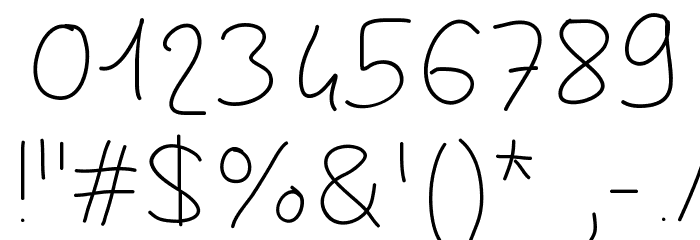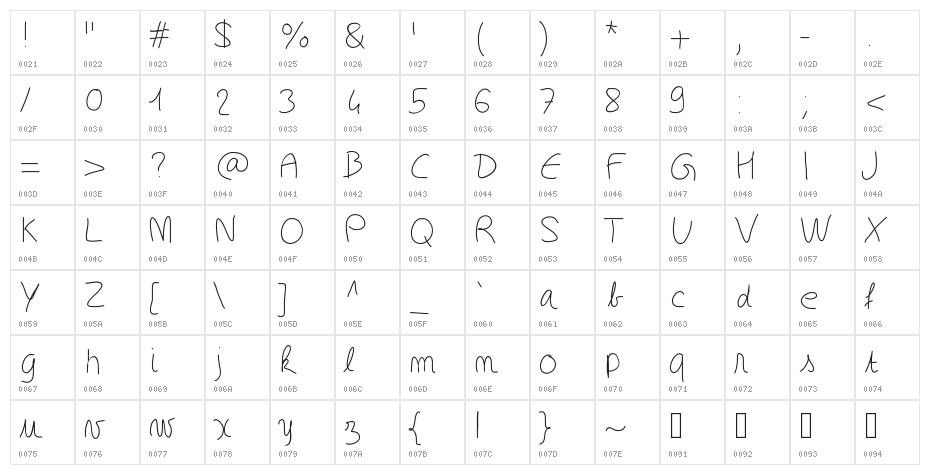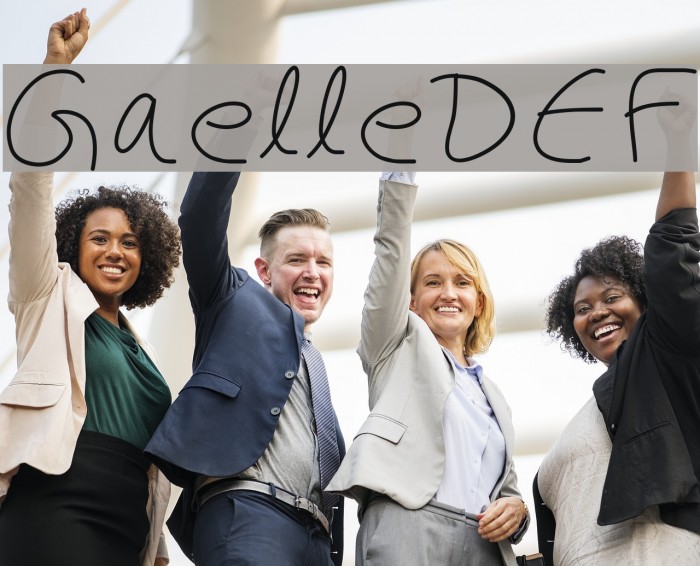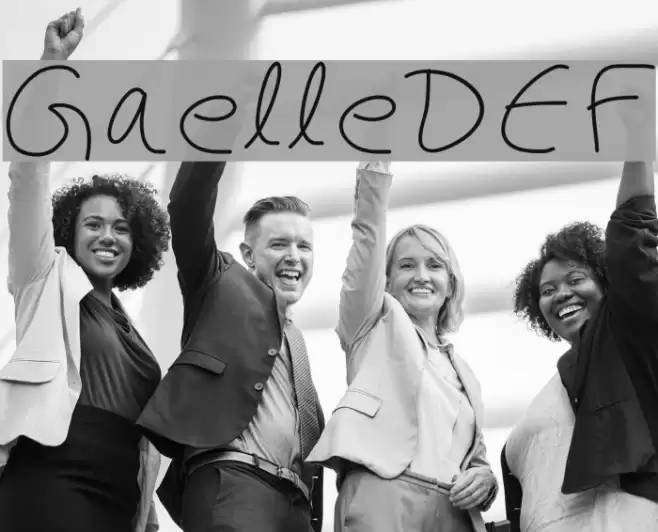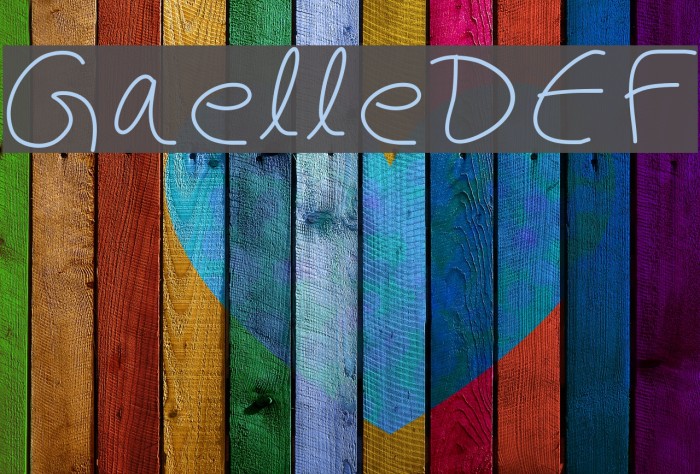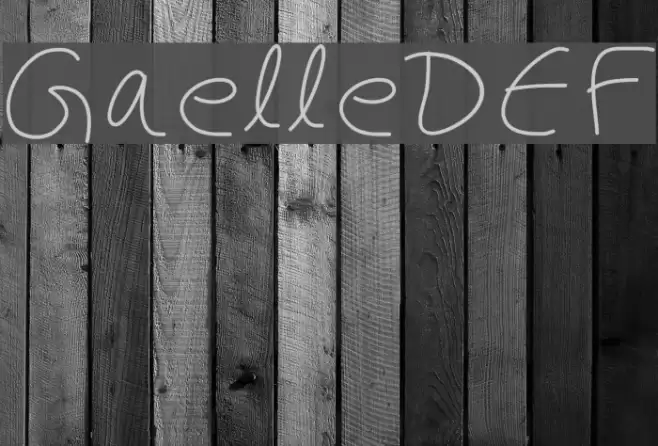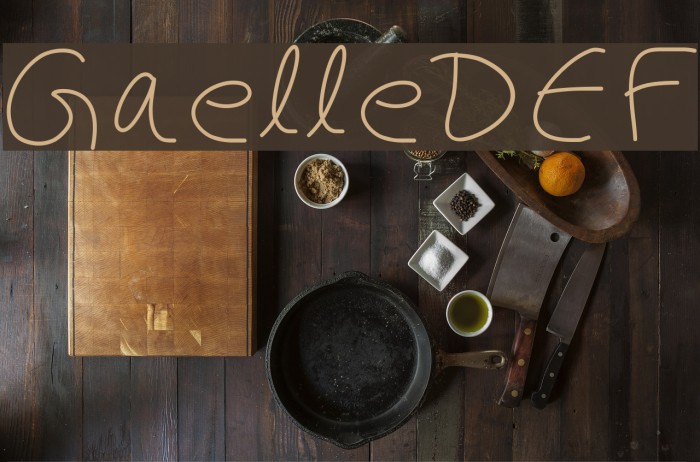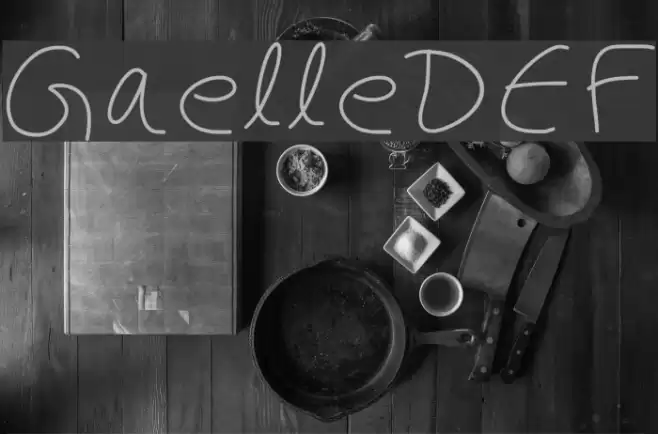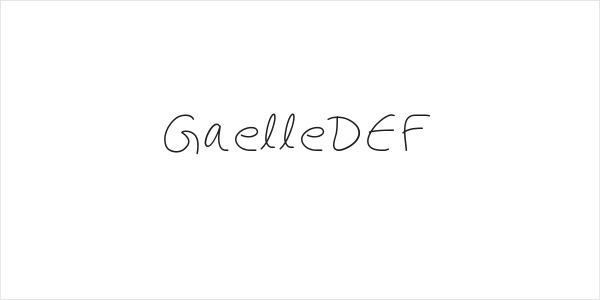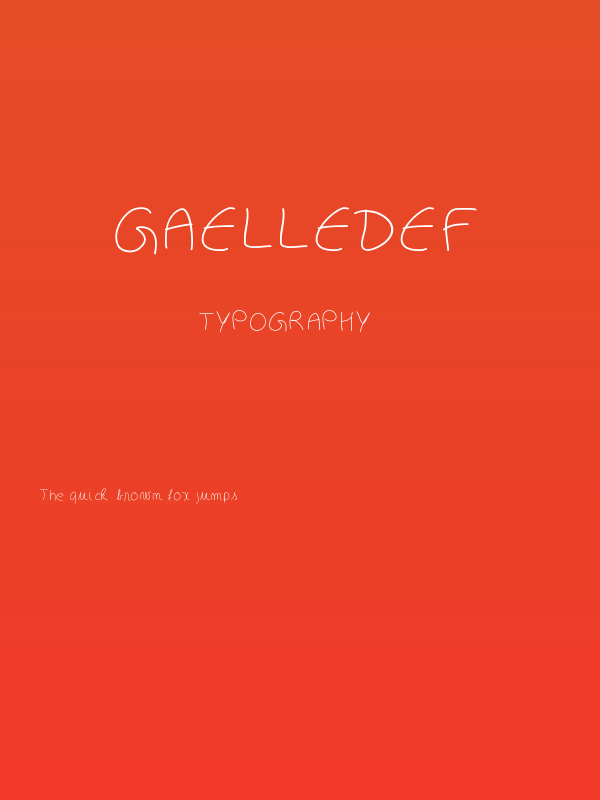
GaelleDEF Font
GaelleDEF Description
This font features a playful and casual handwritten style, characterized by its smooth, flowing lines and slightly irregular shapes. The letters have a consistent stroke width, giving it a uniform appearance while maintaining a relaxed and informal vibe. The uppercase letters are slightly taller than the lowercase, with a gentle curve that adds to the font's approachable nature. The numbers and special characters follow the same style, ensuring cohesion across all text elements. This font is ideal for projects that require a personal touch, such as greeting cards, invitations, or informal branding.
| Use Case | Informal text, personal projects, creative designs. |
| Proposed Projects | Greeting cards, invitations, informal branding, personal notes. |